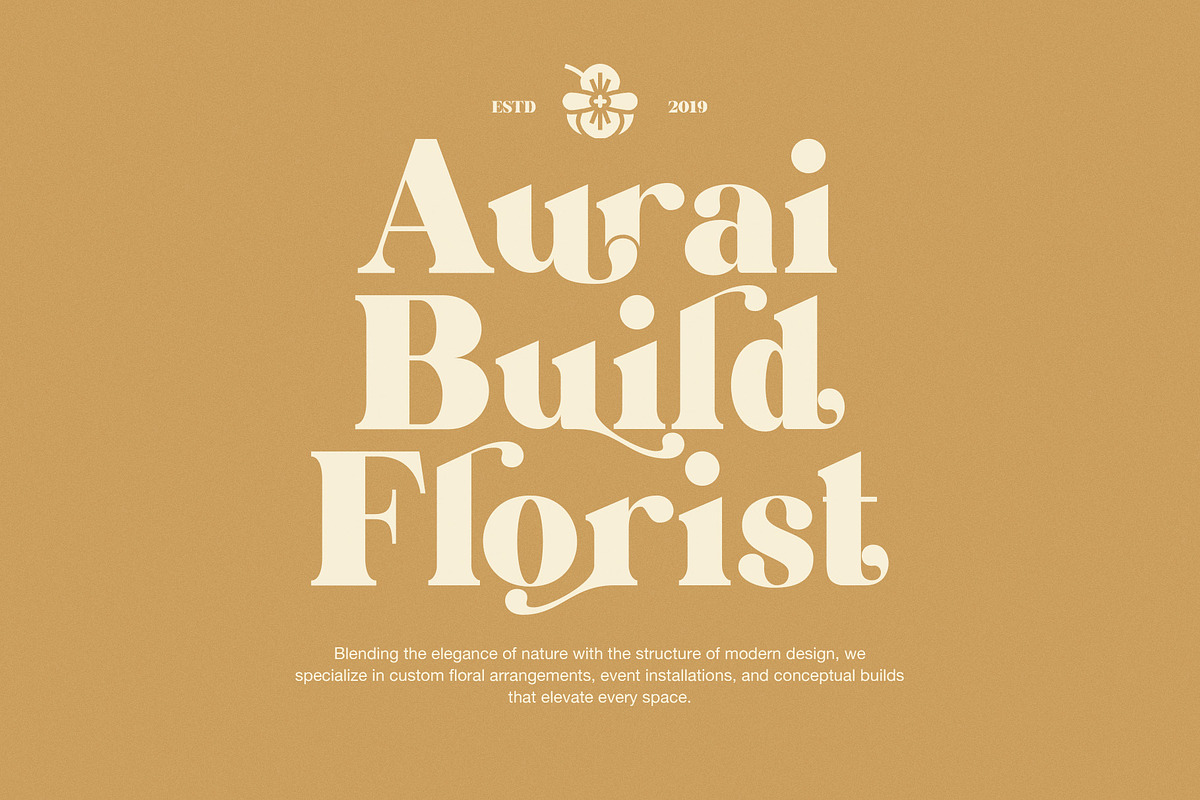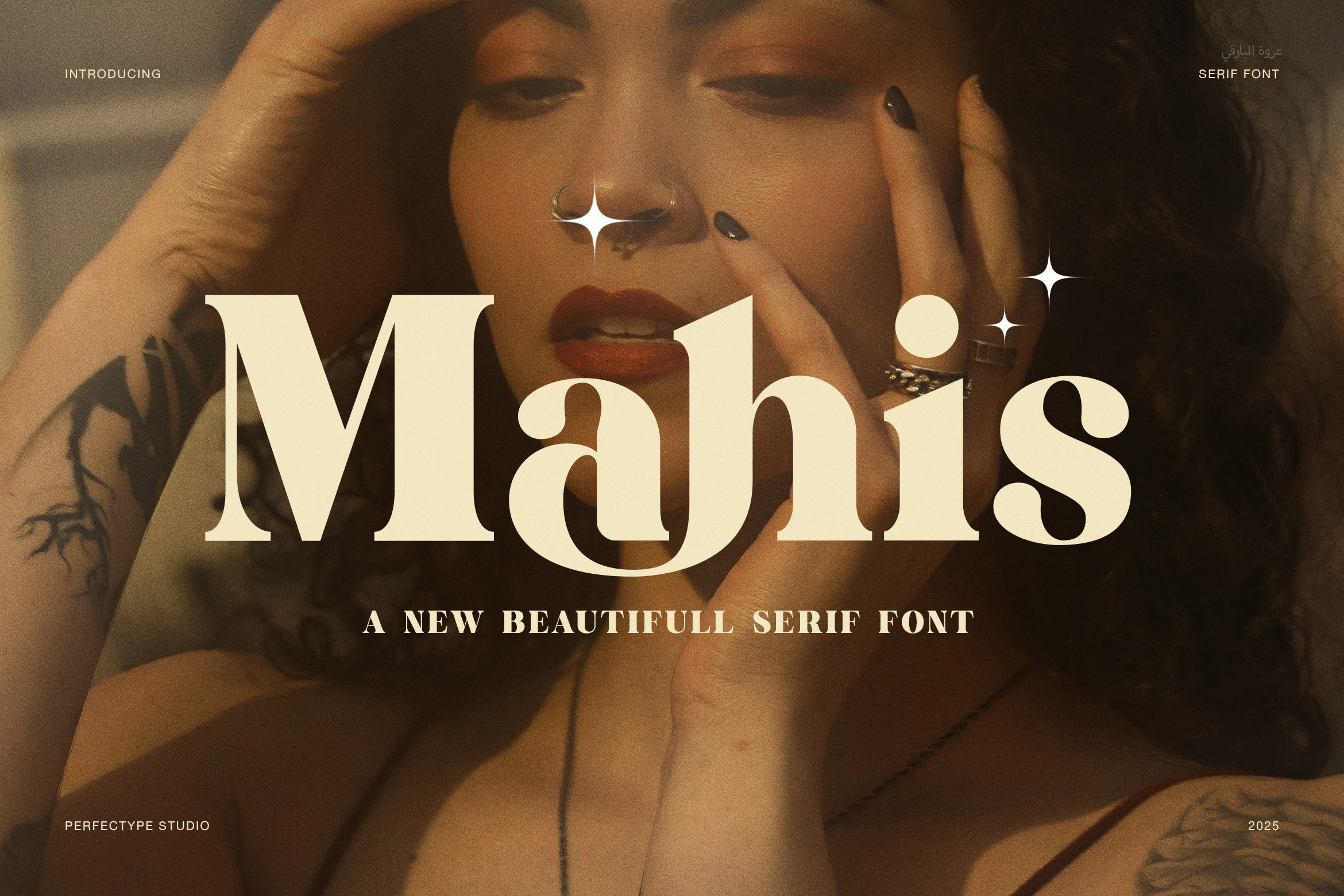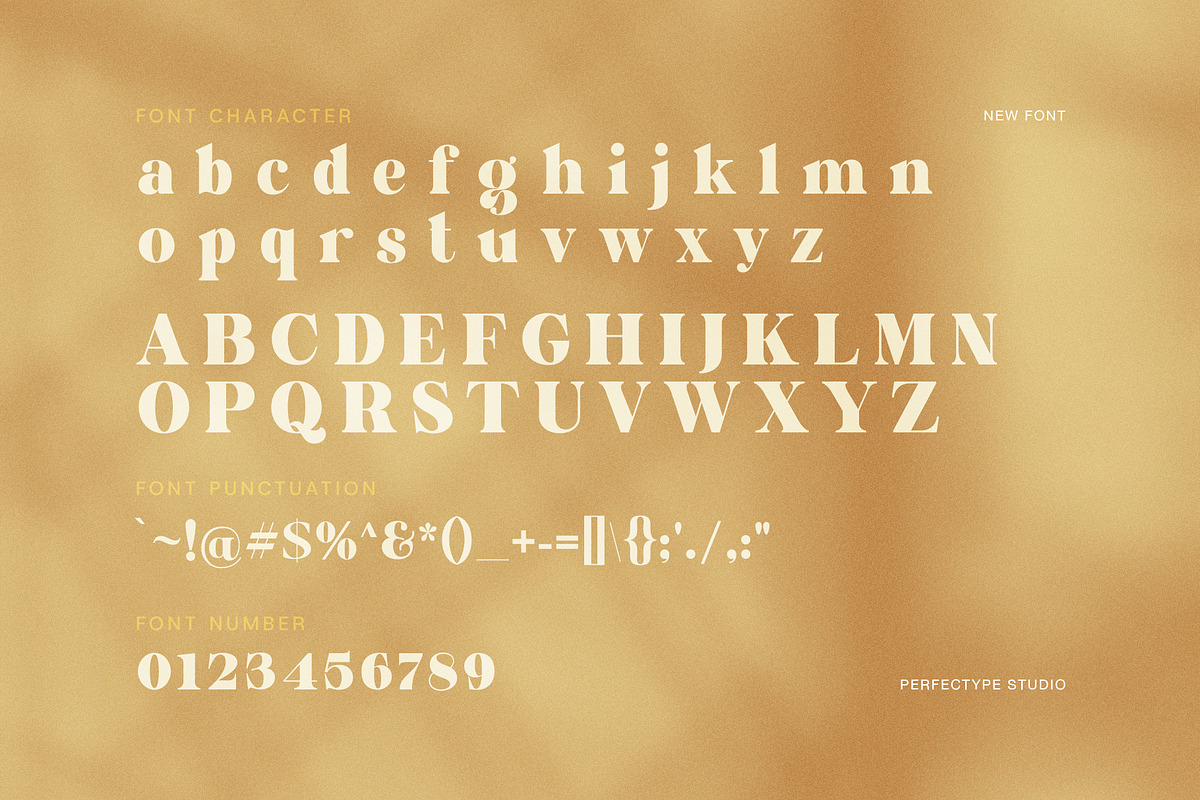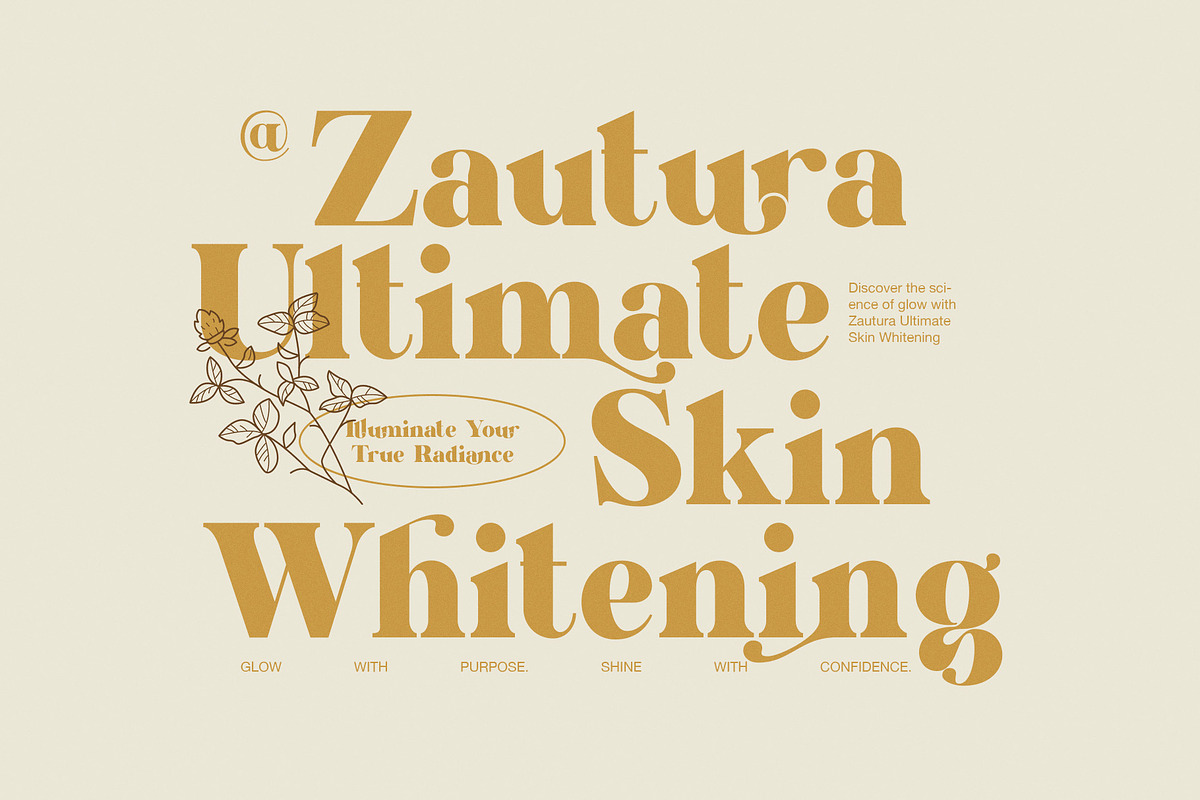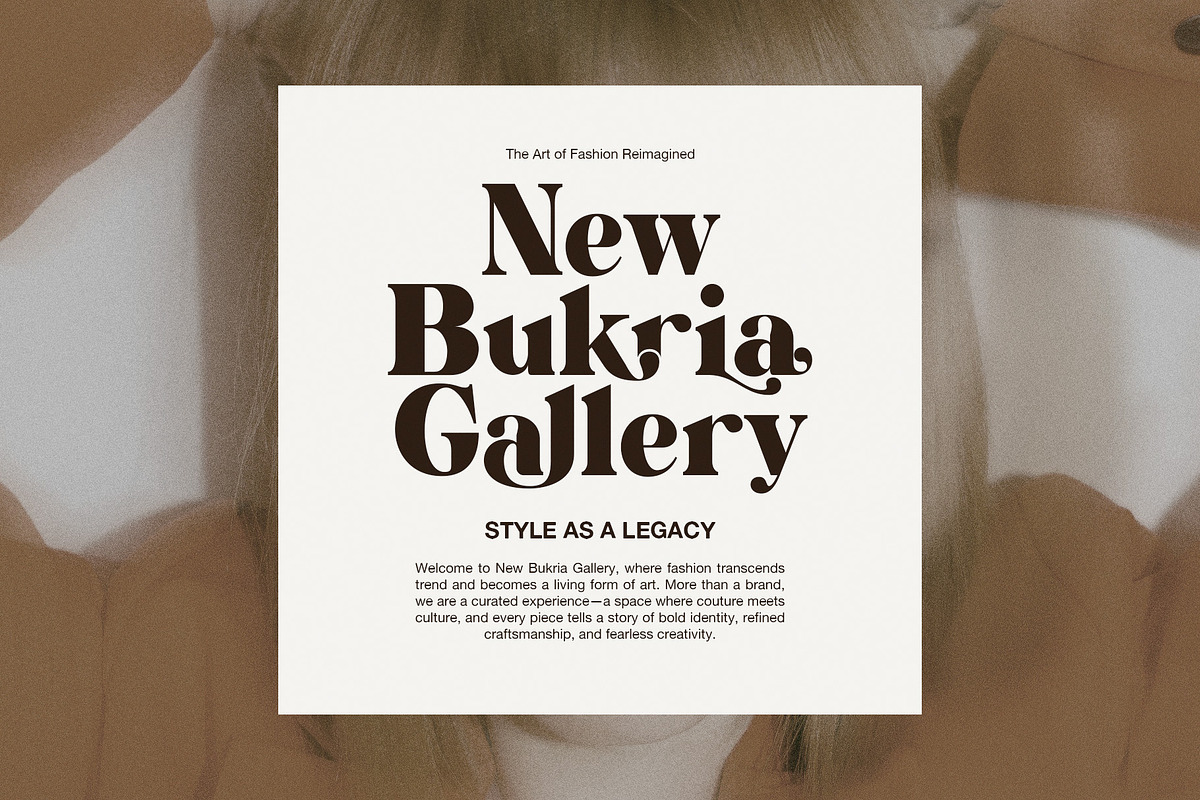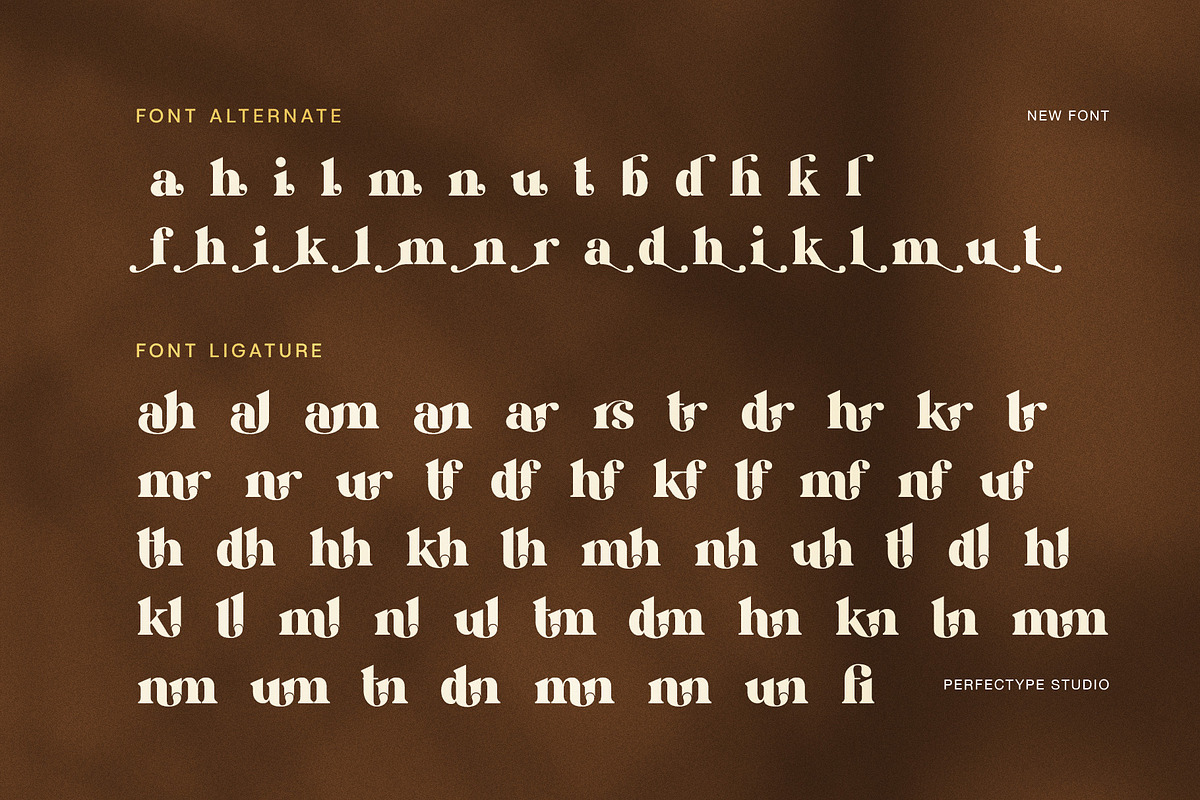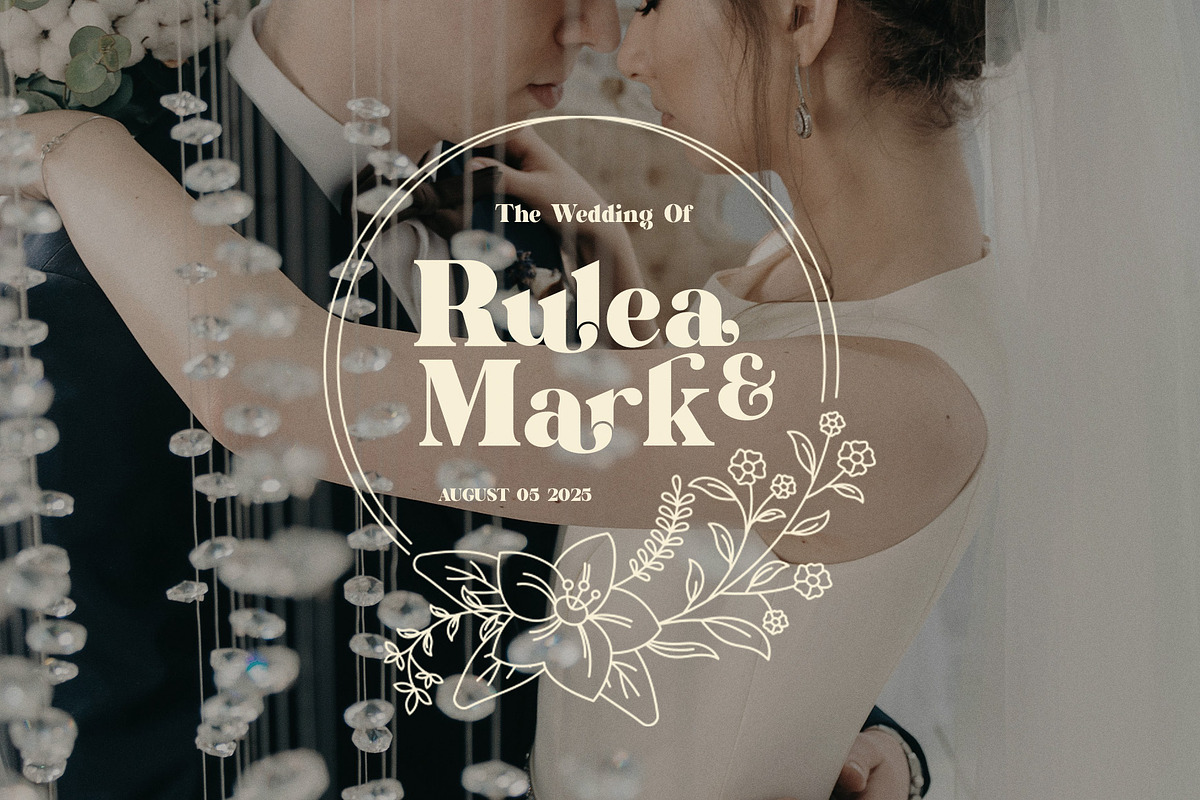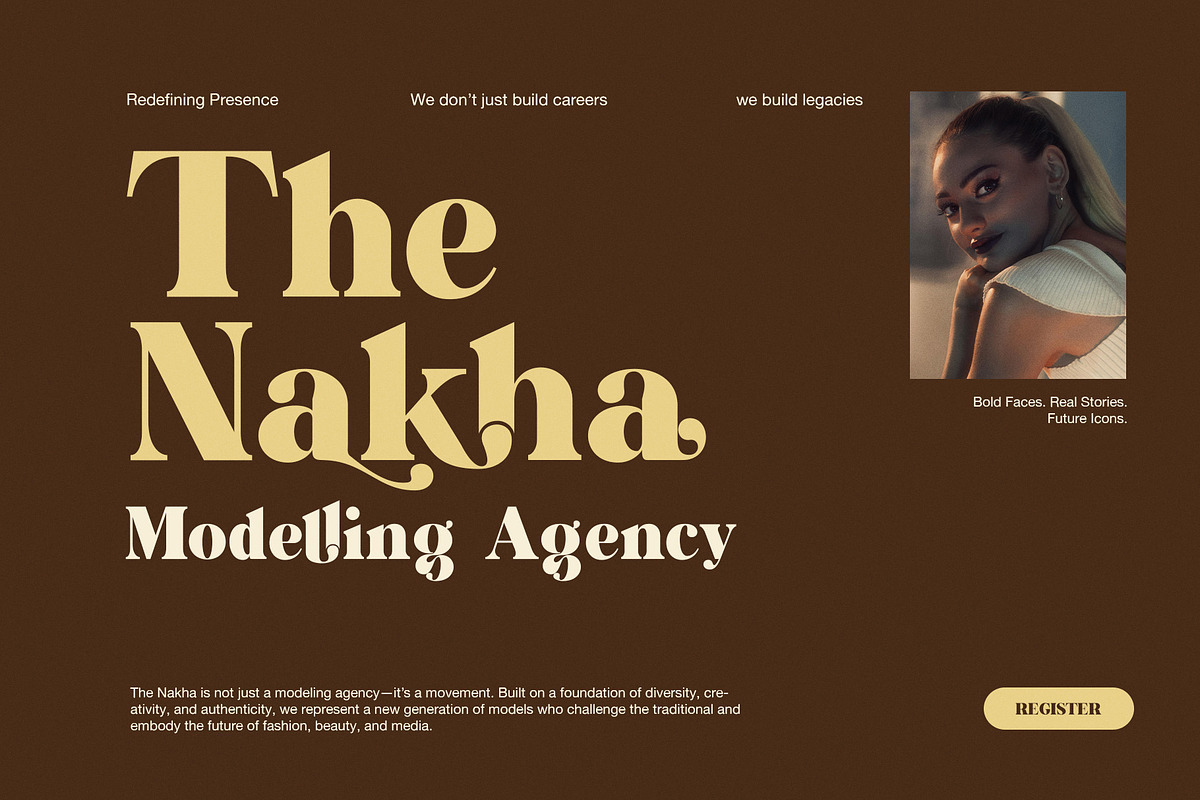
Mahis Vintage Serif Font
Mahis Serif is a classic serif font that brings a timeless touch to any creative project. It combines soft curves with sharp details, so every letter feels elegant and strong. Because of its balanced shapes, this font adds both beauty and clarity to your work. It suits many styles, from branding and fashion to editorial design, packaging, and invitations.
Moreover, Mahis Serif offers a smooth reading experience. You can use it for large titles, and it still looks stunning in smaller text. This flexibility makes it a smart choice for designers who want a clear, refined look. Since its lines are clean and balanced, it works well in both print and digital projects.
In addition, this font blends traditional serif charm with a fresh, modern style. As a result, it creates a lasting first impression and guides the reader’s eye through the layout. Whether you are designing wedding cards, magazine covers, or logos, this typeface helps your work stand out.
You can also pair Mahis Serif with sans serif or script fonts to build a strong visual identity. Therefore, it fits perfectly in luxury branding, editorial layouts, and elegant posters. Its refined contrast and gentle flow make it ideal for both minimalist and bold designs.
Finally, Mahis Serif gives every design a calm, confident voice. It does not just shape words; it shapes emotions. Through its elegant structure, it allows your story to shine with style and grace.
🌟 Main Features:
Elegant serif with modern lines
Perfect for branding and editorial work
Clean and readable in all formats
Works well with other font styles
Ideal for luxury and minimalist designs
Supports multiple languages
By choosing Mahis Serif, you create more than a design. You build trust, style, and lasting impact.